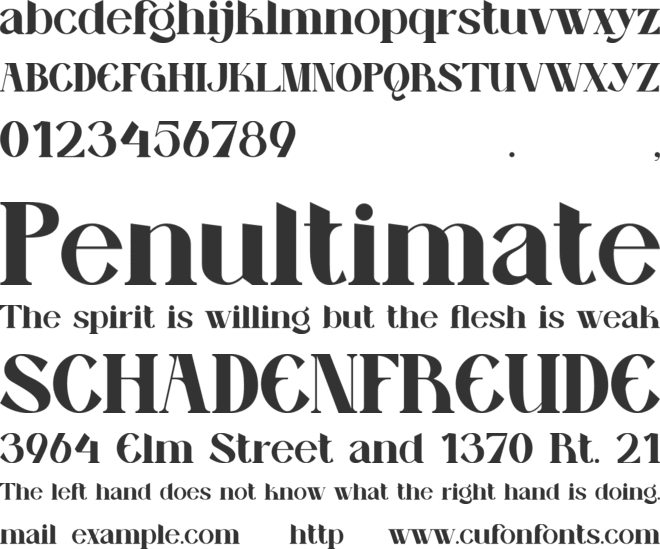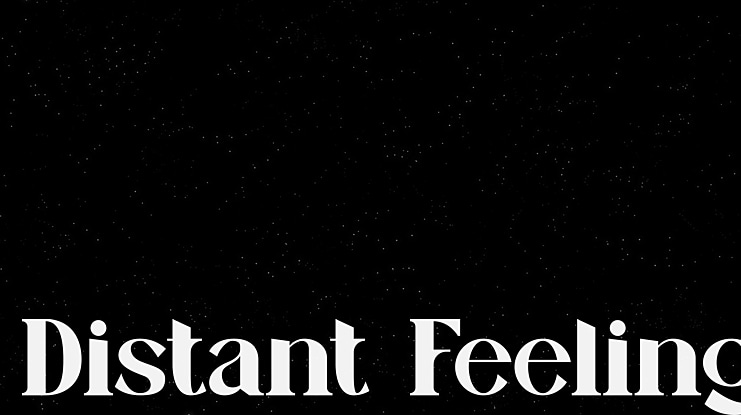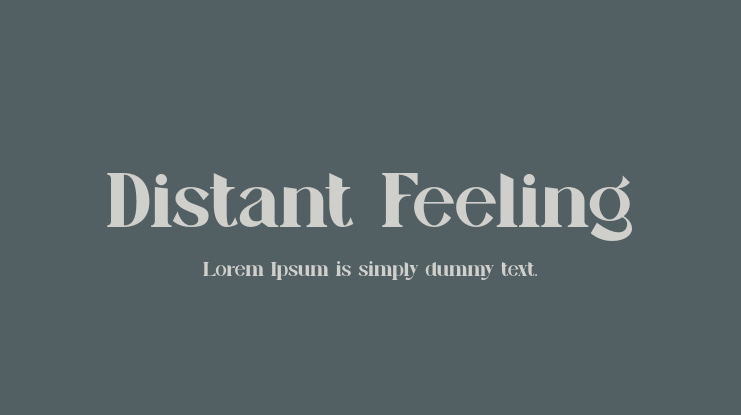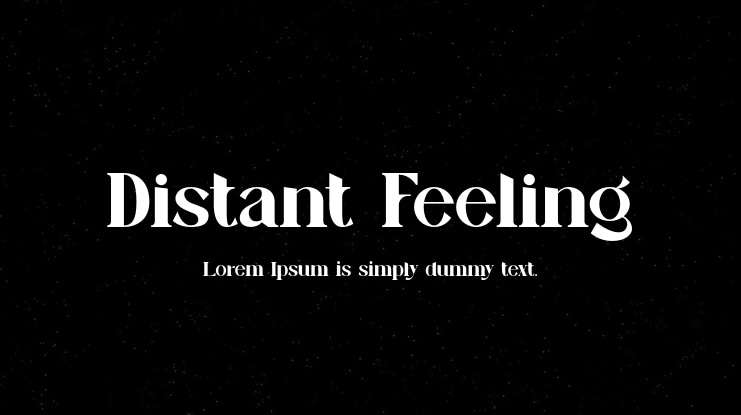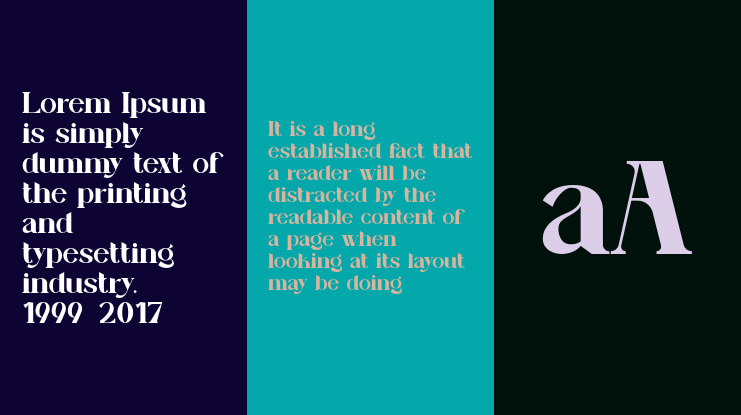
Distant Feeling Font Family
An aesthetic font that has a unique and elegant character to use.
Distant Feeling is a beautiful and elegant Handwritten Font. With inspiration from the distance of a relationship that never met. This font I created is meaningful & very versatile, it goes well with various designs, elevating them to the highest level. Add this font to your favorite creative ideas and see how it comes to life!
Features: Uppercase, Lowercase, Alternates, Ligatures & Multilingual Support